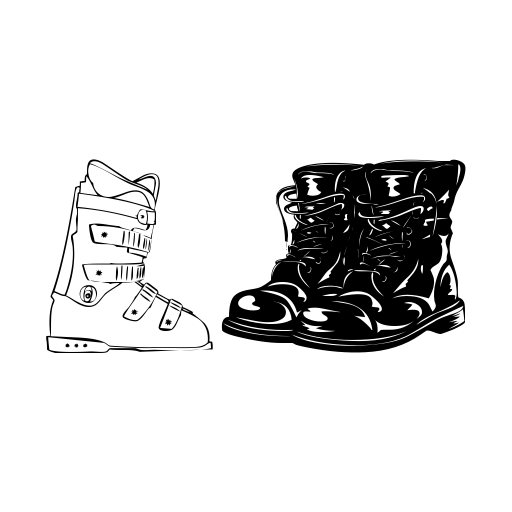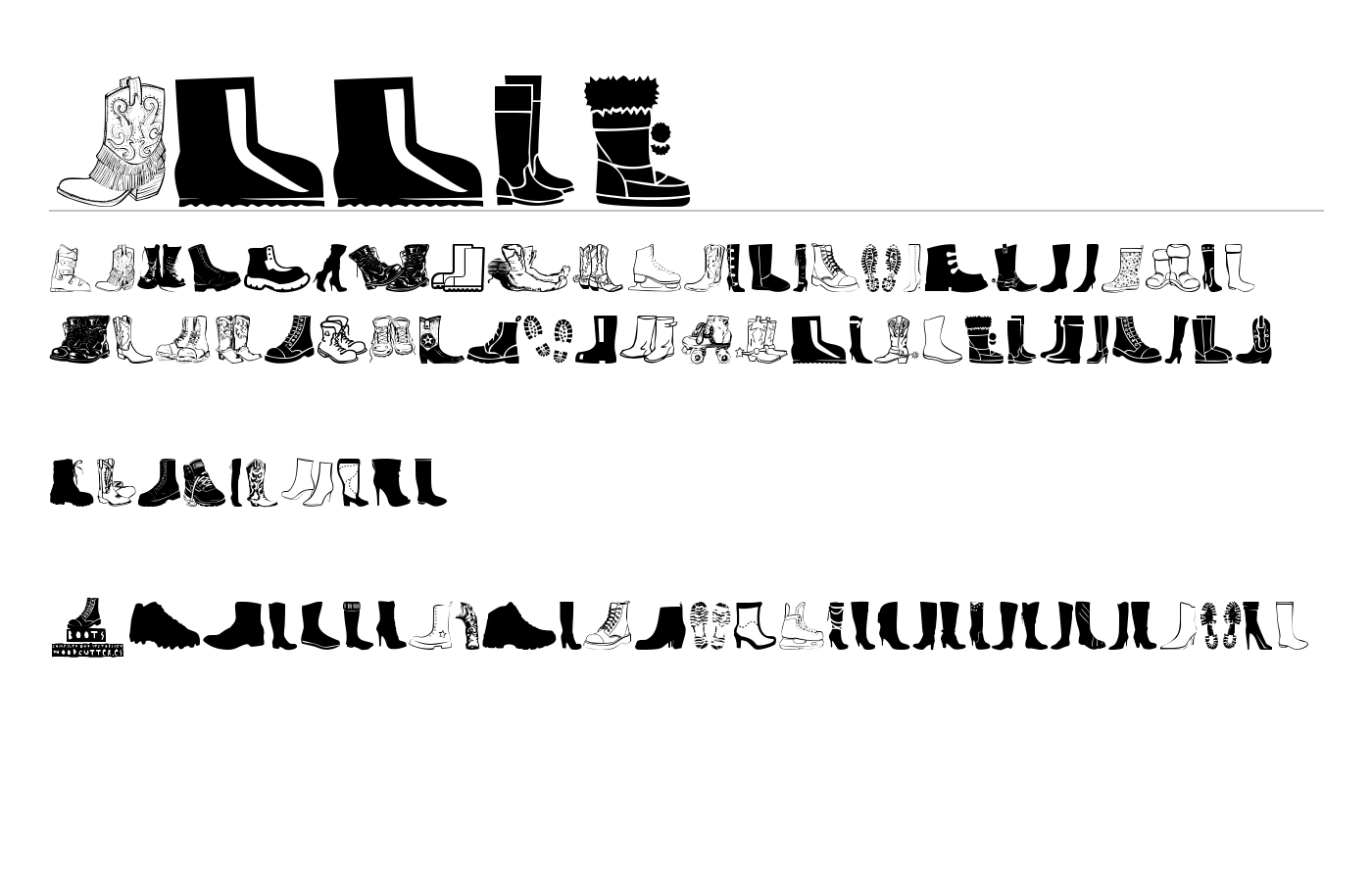
Boots Font is a unique decorative typeface composed entirely of boot and shoe illustrations, offering a playful and quirky visual style rather than traditional letterforms. This font works well for themed designs and creative projects that want to inject personality and charm, particularly in footwear branding, casual posters, or fun editorial layouts where the emphasis is on distinctive imagery instead of readability.
Boots Font
About Boots Font